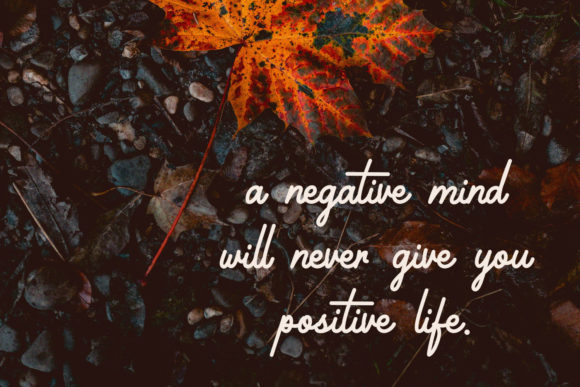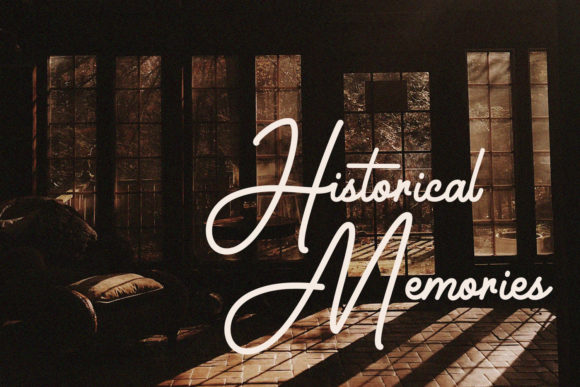
Brooklyn Makayla Font
db-ku.com - Script & Handwritten -- Brooklyn Makayla is a delicate and well balanced script font. It is suitable for logos, stationery art, quotes, book covers, magazines, branding, and much more. Add it to your most unique ideas to make them stand out.